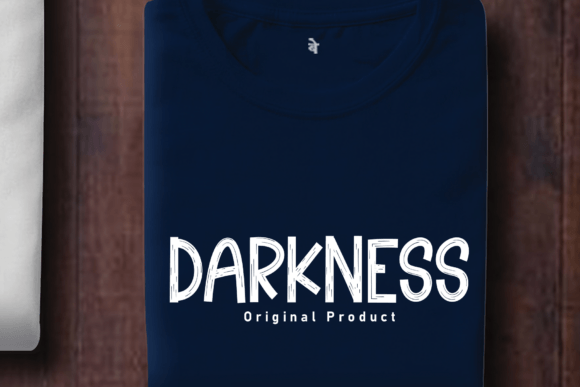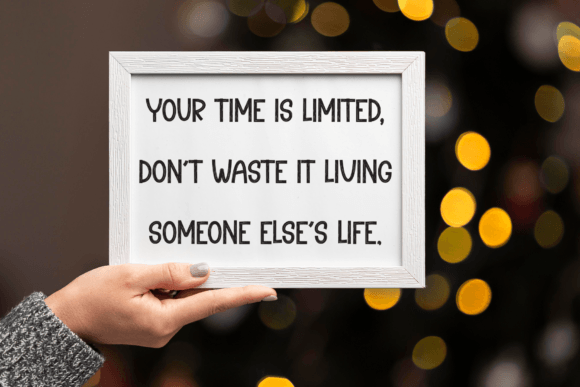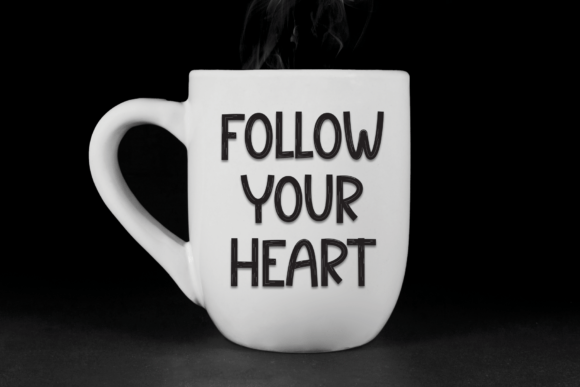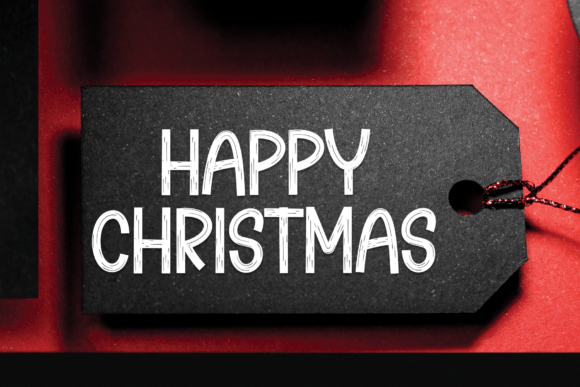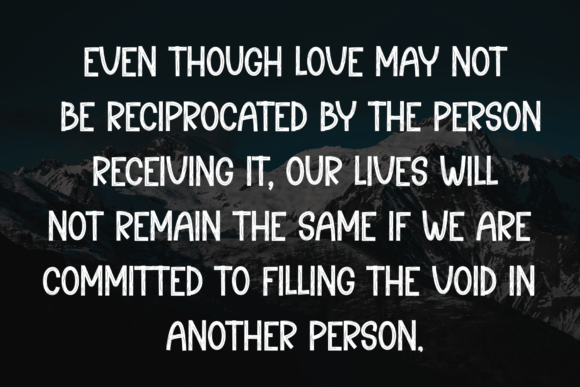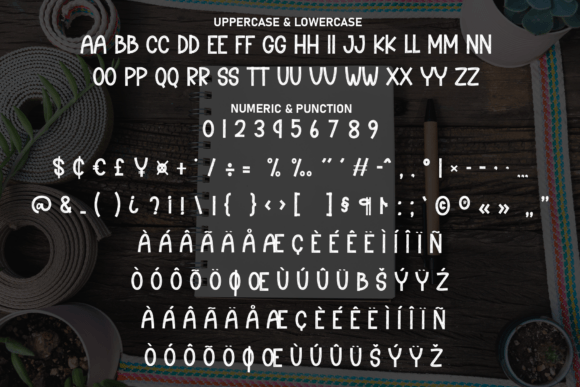
Unleashing the Magic of Handwritten Charm
Have you ever been brainstorming ideas for a new design project, only to be struck by a burst of inspiration? Maybe it’s the perfect phrase for a wedding invitation, or a whimsical touch for a children’s book cover. Whatever the spark, it’s moments like these that remind us of the joy of creating something truly special.
That’s where Book Planner Font comes in – a delightful blend of charm and elegance that’s sure to bring your designs to life. This beautiful handwritten display font is perfect for crafting enchanting wedding invitations, captivating cards, or adding a playful touch to any project. Whether you’re a seasoned designer or just starting out, Book Planner Font is a valuable addition to your toolkit – offering a unique and eye-catching aesthetic that’s sure to set your designs apart.
Key Features of Book Planner Font
- Font Family: Book Planner Font is a specially designed font for planners, journals, and other writing purposes.
- Unique Characteristics: Features a clean, modern design with subtle line variations and subtle color changes to enhance readability and visual appeal.
- Font Styles: Includes a range of font styles, including Regular, Italic, Bold, and Bold Italic, to cater to different writing and formatting needs.
Designer Review: Book Planner Font
Overall, I’m quite impressed with the Book Planner Font. It has a lot of potential for creating beautiful and organized book layouts. ✨ The font’s clean and modern design makes it easy to read, and the various weights and styles offer a lot of flexibility for customization.
- ✨ Clean and modern design: The font’s minimalist aesthetic makes it perfect for book layouts, and the subtle flourishes add a touch of elegance.
- ✨ High level of customization: The font’s various weights and styles allow for a lot of creative freedom, making it suitable for a wide range of book types.
- ✨ Good legibility: The font is easy to read, even at small font sizes, making it perfect for book text.
- ⚠️ Limited language support: The font seems to be optimized for Latin-based languages, which may limit its use for books in other languages.
- ⚠️ No extensive character set: While the font includes a good number of characters, it’s not exhaustive, which may cause issues with certain book types or languages.
While the Book Planner Font has some limitations, its strengths outweigh its weaknesses. With a bit more development, I think this font has the potential to become a top choice for book designers. As it stands, I would recommend it for most book projects, but with some caution regarding its limitations.
Book Planner Font: A Practical Application Guide
To get the most out of the Book Planner Font, try using it in conjunction with other design elements, such as headers, footers, and icons. Experiment with different font sizes, colors, and styles to create a cohesive look.
The Book Planner Font is commonly used for:
- Book covers and interior design
- Journal and planner templates
- Author websites and blogs